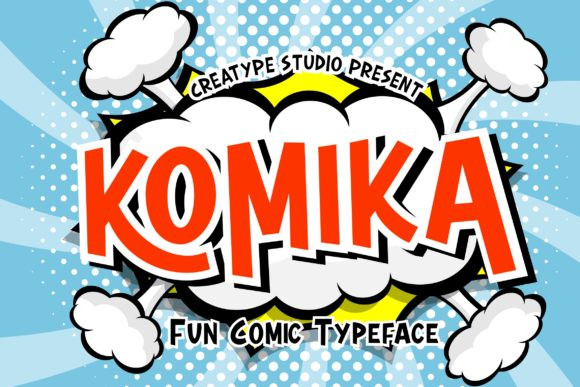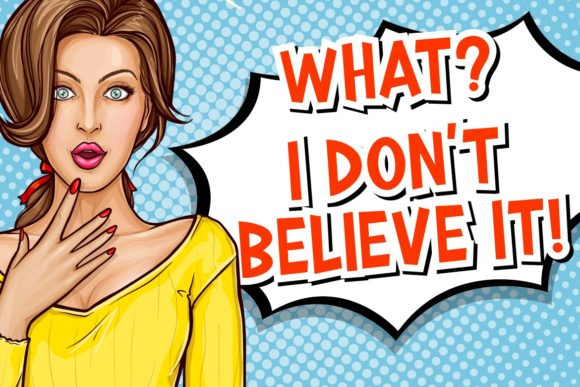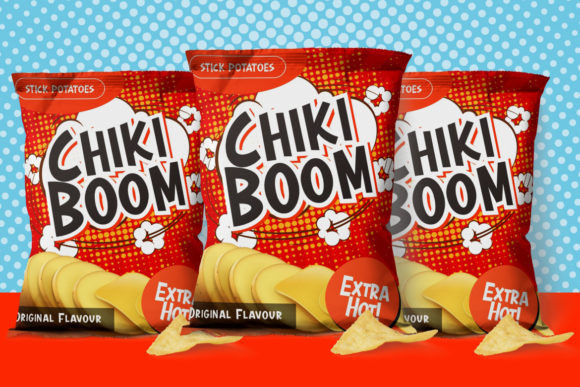
Komika Font
Komika FontKomika is a trully unique and eye-catching display font. Use it to make your ideas even more realistic and create spectacular designs!